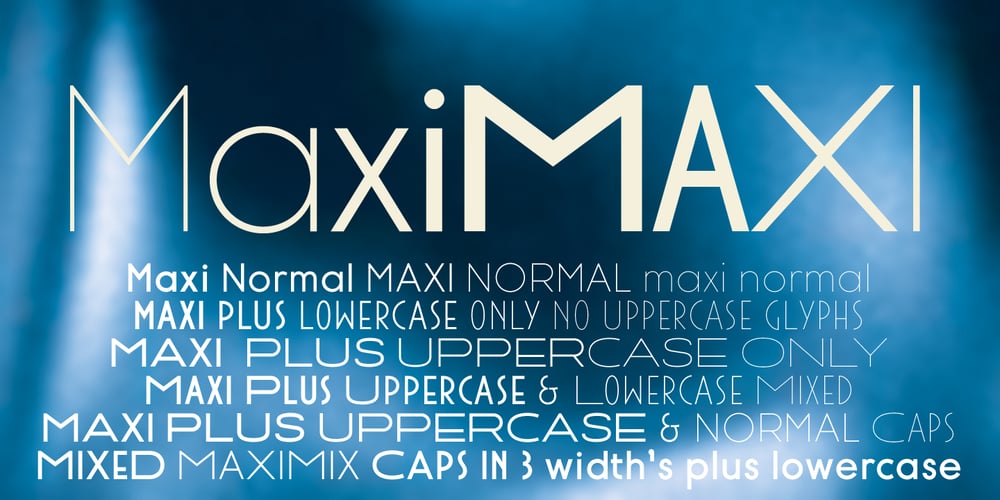
Maxi
Maxi font
Maxi Font Family was designed by Gert Wiescher and published by Wiescher Design. Maxi contains 20 styles and family package options. Maxi is a very french linear, geometric sans typeface, that can be used in all latin languages. The Maxi Plus has narrow uppercase glyphs instead of lowercase letters and the uppercase glyphs are extra wide, so you can combine three different widths of caps to get a unique design. The two fonts come in the same five weights each. Enjoy!